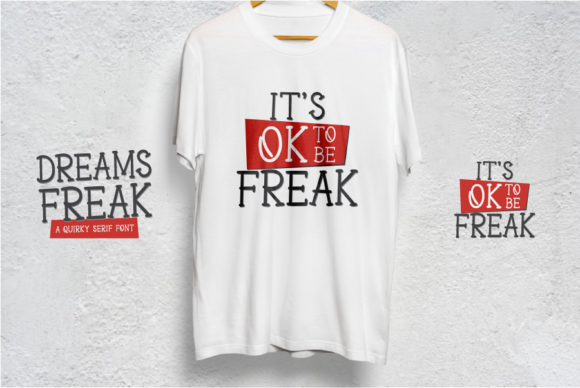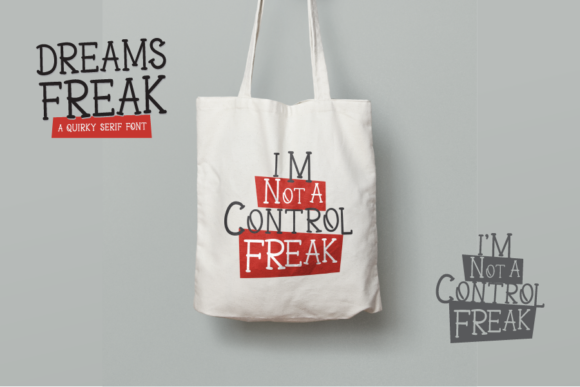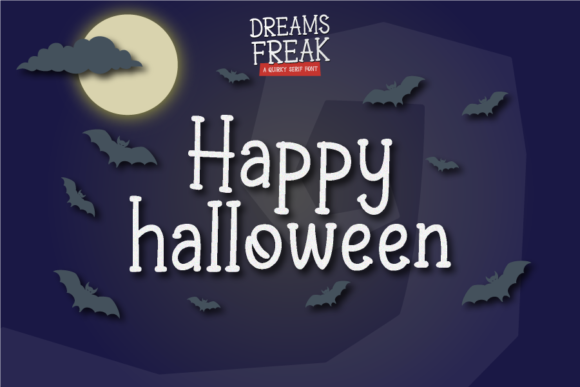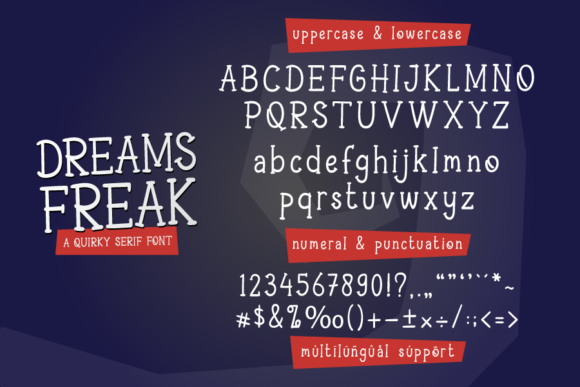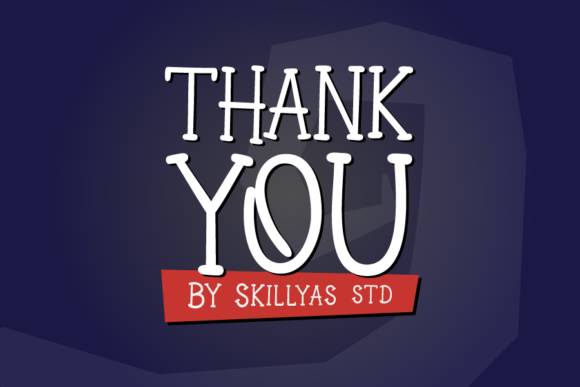
Dreams Freak Font: Unleash Your Creativity with this Whimsical Hand-Lettered Serif Font
Are you a designer or crafter looking for a unique and playful font to add some personality to your designs? Look no further than the Dreams Freak Font! This hand-lettered serif font is designed to bring a fun and freaky mismatched feel to your creations, making it perfect for a wide range of projects.
What is Dreams Freak Font?
Dreams Freak is a carefully crafted hand-lettered serif font that boasts a charmingly irregular style. Its distinctive look is characterized by mismatched letters, creating a delightfully whimsical effect that’s sure to capture attention. This font is ideal for designers and crafters who want to infuse their work with a dash of playfulness and personality.
What Can I Use Dreams Freak Font For?
The versatility of Dreams Freak Font makes it suitable for a multitude of design projects. Here are some ideas to get you started:
- Poster Designs: Create eye-catching posters for events, promotions, or awareness campaigns that stand out from the crowd.
- T-Shirt Designs: Add a quirky touch to your apparel designs, making them perfect for fashion brands, influencers, or fun enthusiasts.
- Banner Designs: Design attention-grabbing banners for websites, social media, or marketing campaigns that showcase your brand’s personality.
- Silly Quotes: Use Dreams Freak Font to create humorous quote graphics that are sure to bring a smile to people’s faces.
- Much More! The possibilities are endless – use it for invitations, stickers, packaging, and any other creative project that needs a unique flair.
Why Choose Dreams Freak Font?
With so many fonts available, why should you choose Dreams Freak Font for your projects? Here are just a few compelling reasons:
- Unique Style: The hand-lettered serif design and mismatched feel of Dreams Freak Font ensure that your designs will stand out in a sea of sameness.
- Easy to Read: Despite its playful nature, Dreams Freak Font remains highly legible, making it perfect for both short phrases and longer texts.
- Highly Versatile: Use it for digital or print projects, and experiment with different colors, textures, and styles to match your brand’s aesthetic.
- Time-Saving: With Dreams Freak Font, you can create stunning designs in no time, thanks to its extensive character set and straightforward design.
Tips and Tricks for Using Dreams Freak Font
To get the most out of Dreams Freak Font, here are some expert tips to keep in mind:
- Experiment with Colors: Play around with bold, bright colors to amplify the whimsical feel of your designs.
- Mix and Match: Combine Dreams Freak Font with other fonts to create visually appealing contrasts and add depth to your designs.
- Keep it Simple: Don’t overcomplicate your design – sometimes, less is more, and a simple, bold statement can be the most effective.
- Have Fun: Most importantly, enjoy the creative process and let your imagination run wild!
Dreams Freak Font is a one-of-a-kind hand-lettered serif font that’s sure to bring a fresh, playful vibe to your designs. With its unique mismatched feel and extensive uses, it’s an excellent addition to any designer’s or crafter’s toolkit. So why wait? Unleash your creativity with Dreams Freak Font and watch your designs come to life!